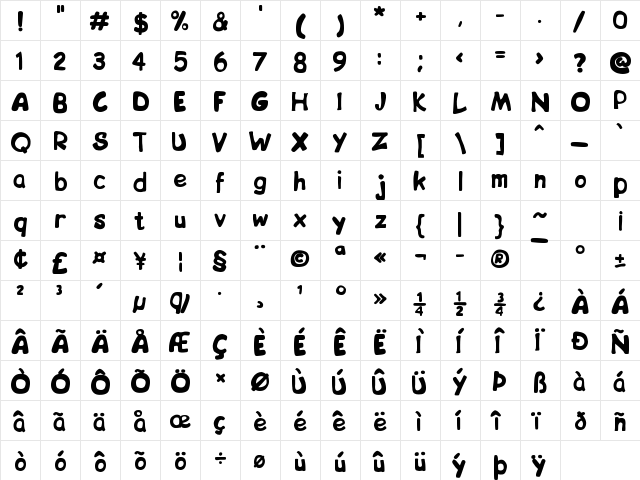
BIP Regular
Design Context for BIP Typeface
BIP is a composed and adaptable typeface that performs quietly and consistently across a wide range of design contexts.